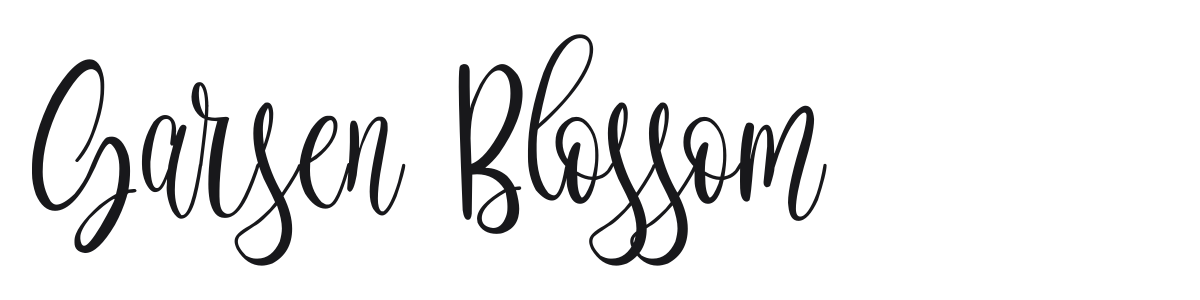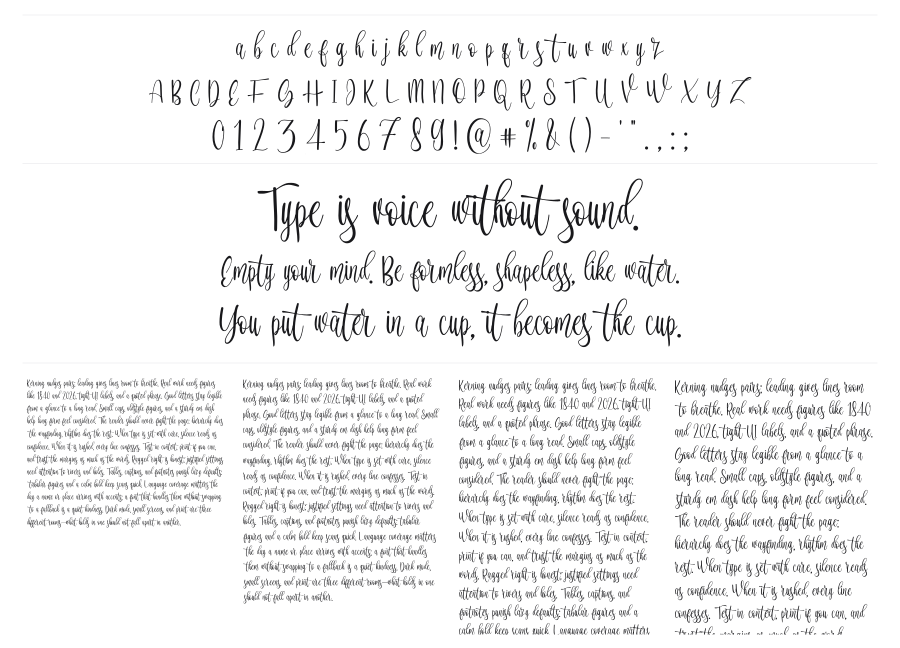
Garsen Blossom
Garsen Blossom is a flowing calligraphic script with high stroke contrast and a lively, bouncy baseline. Sweeping ascenders and looping descenders give it a handcrafted warmth rooted in copperplate tradition, but with enough contemporary looseness to feel fresh. It works best at headline sizes for wedding stationery, boutique packaging, and romantic branding.